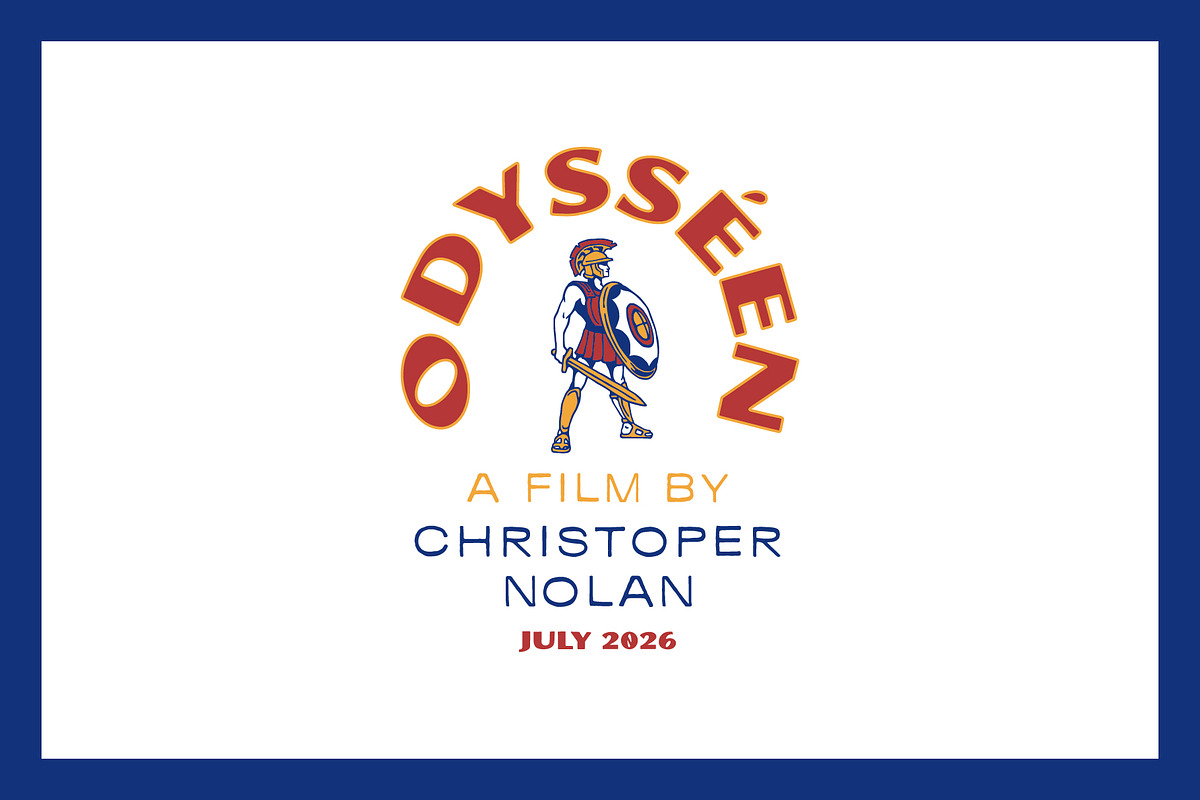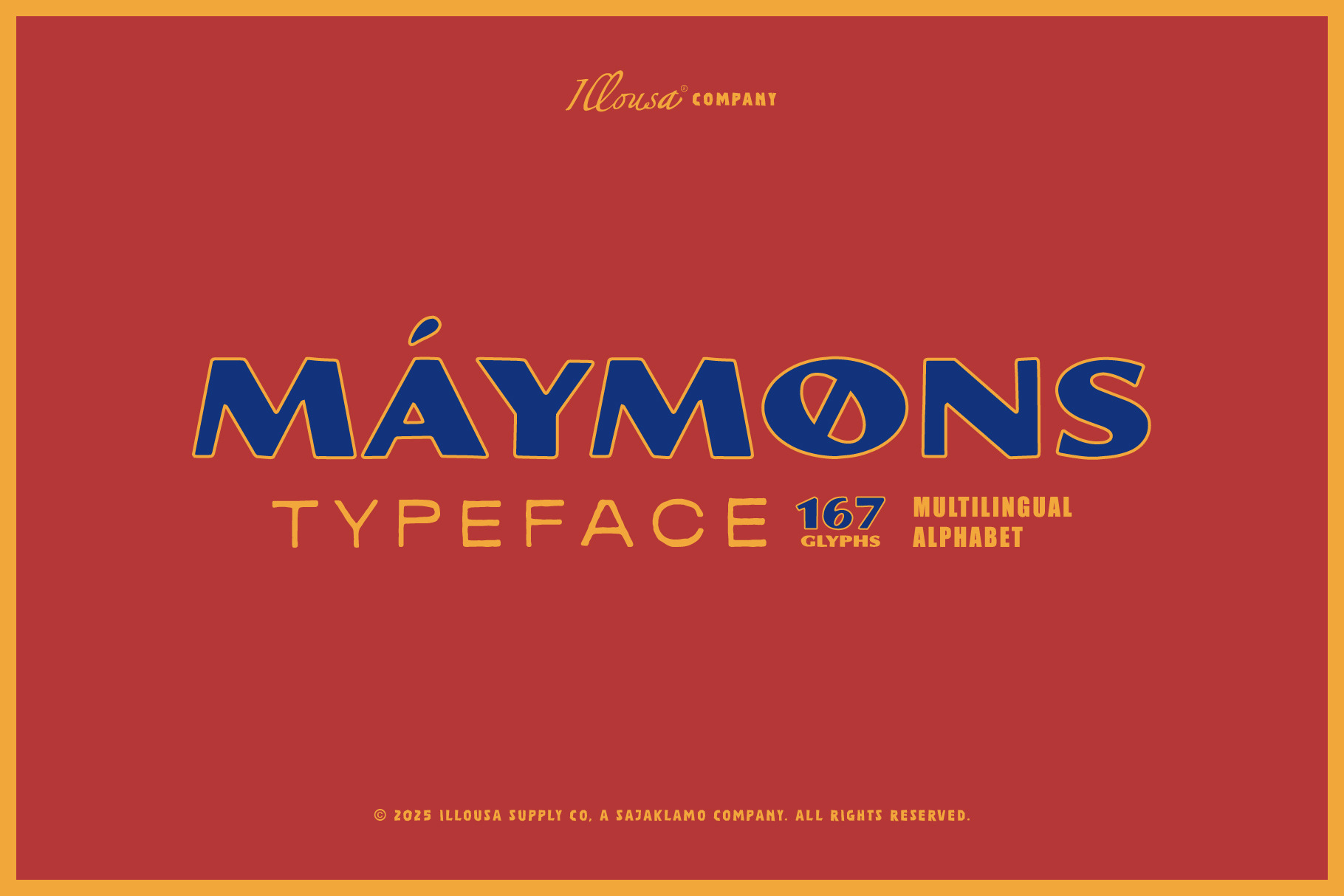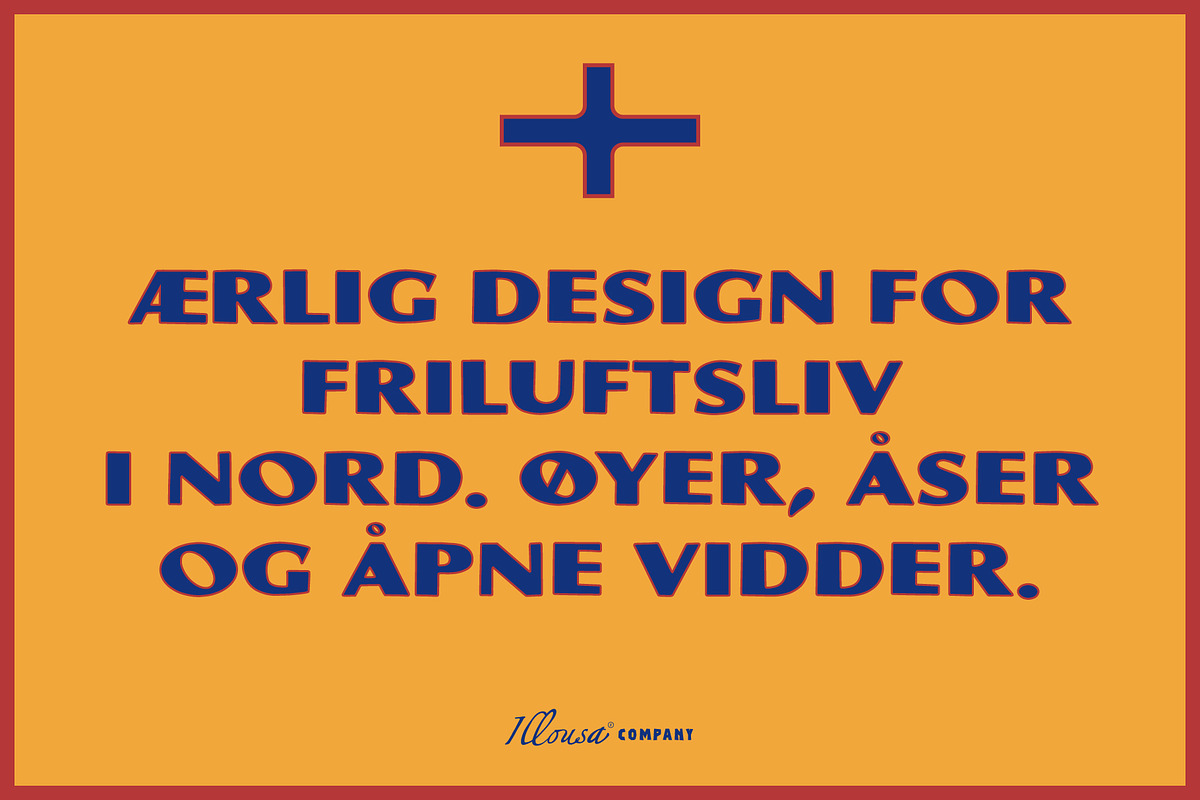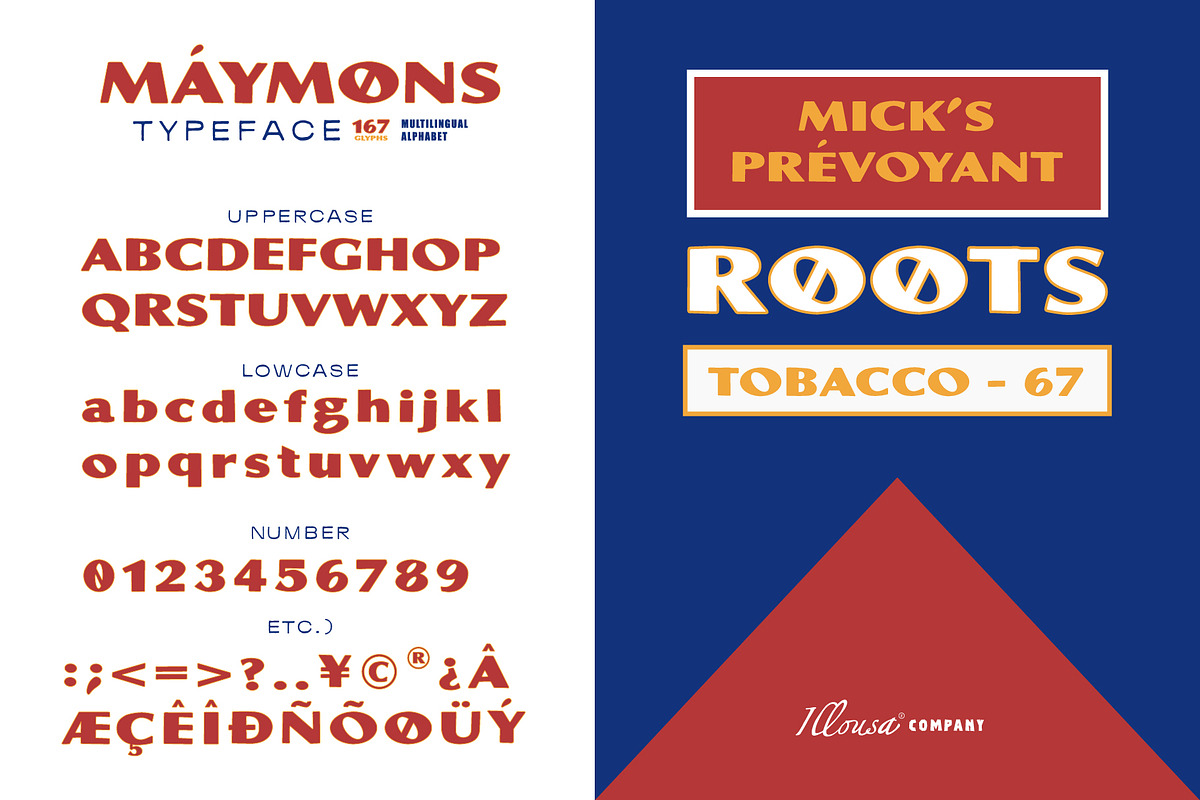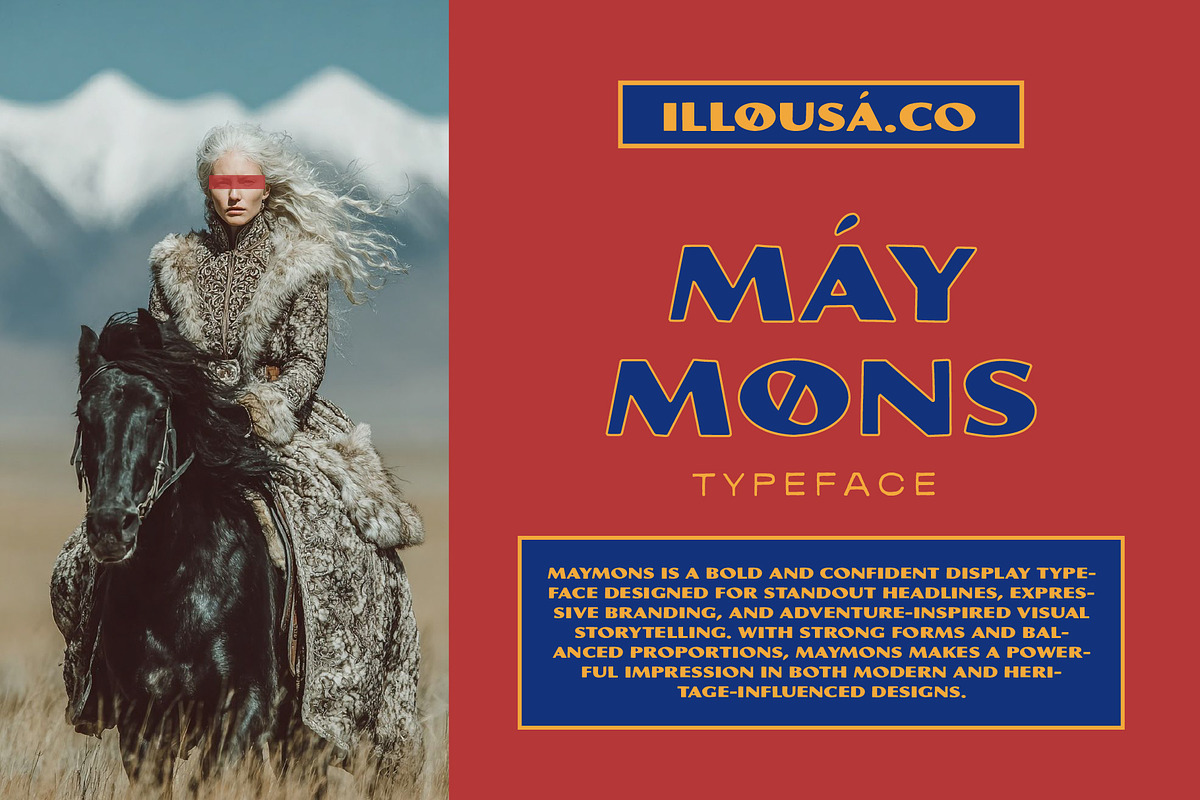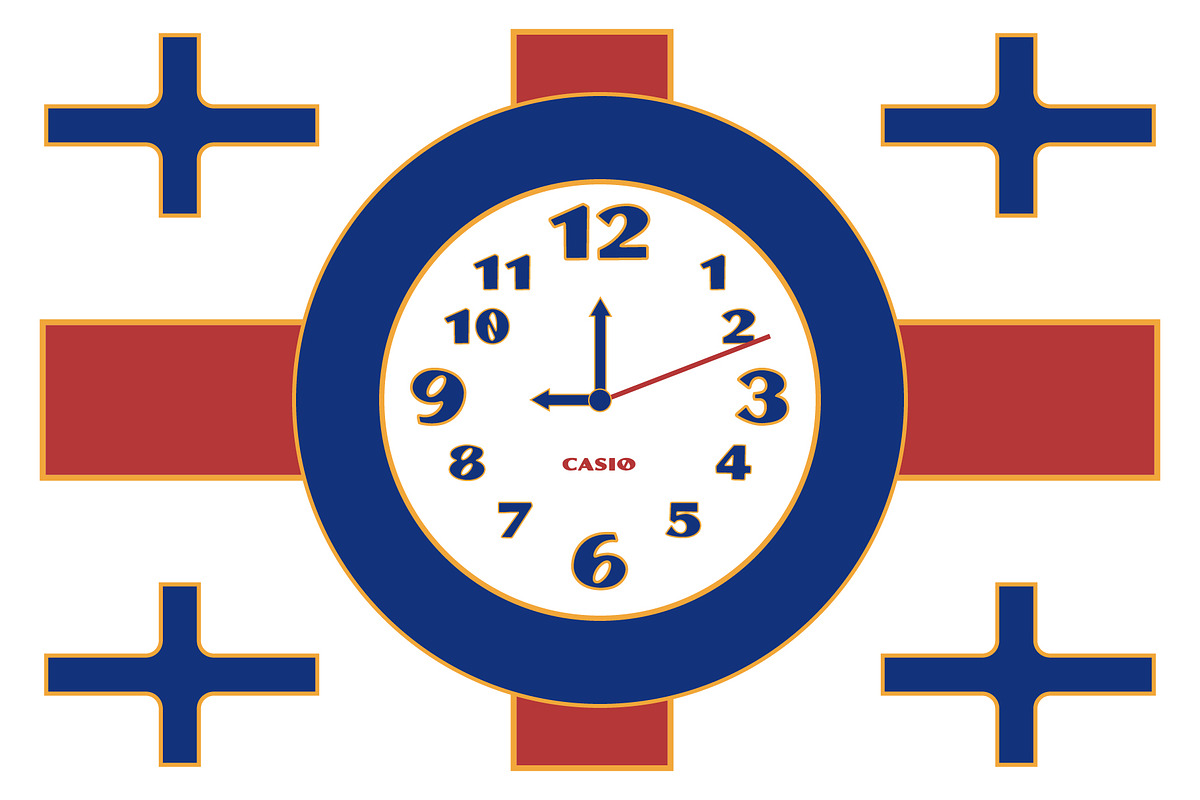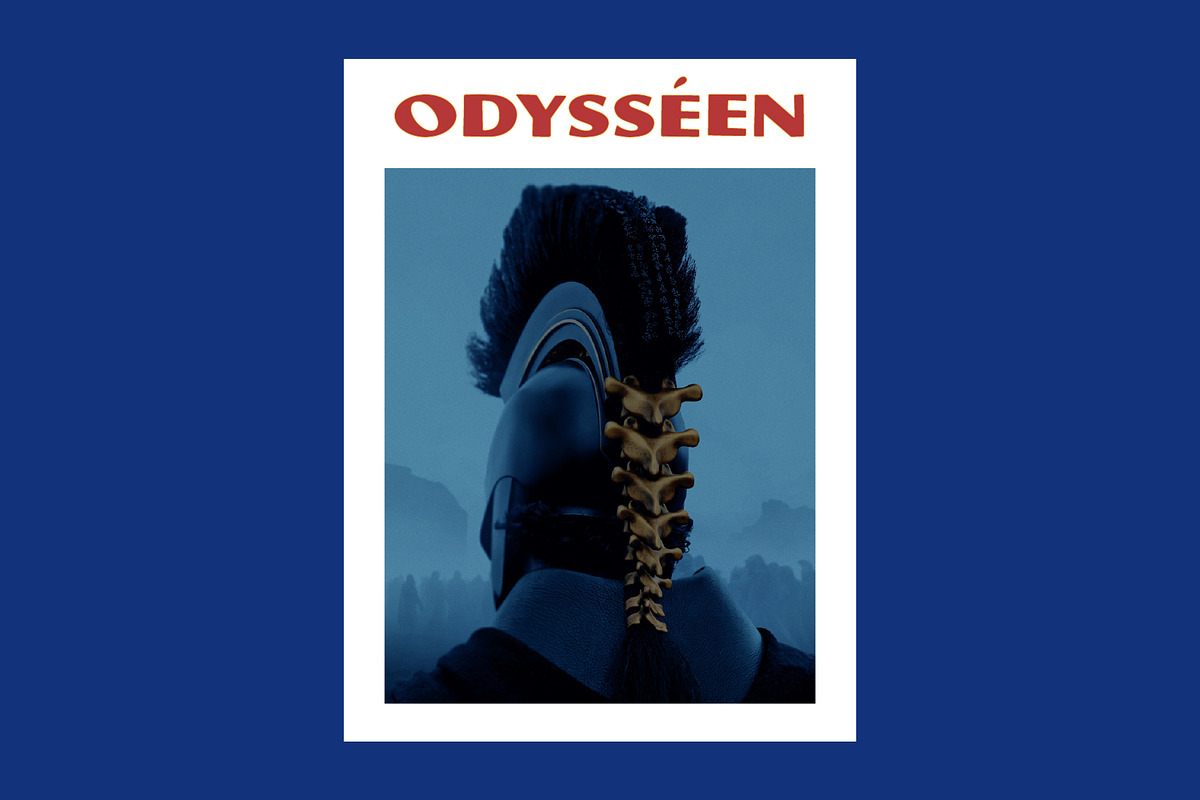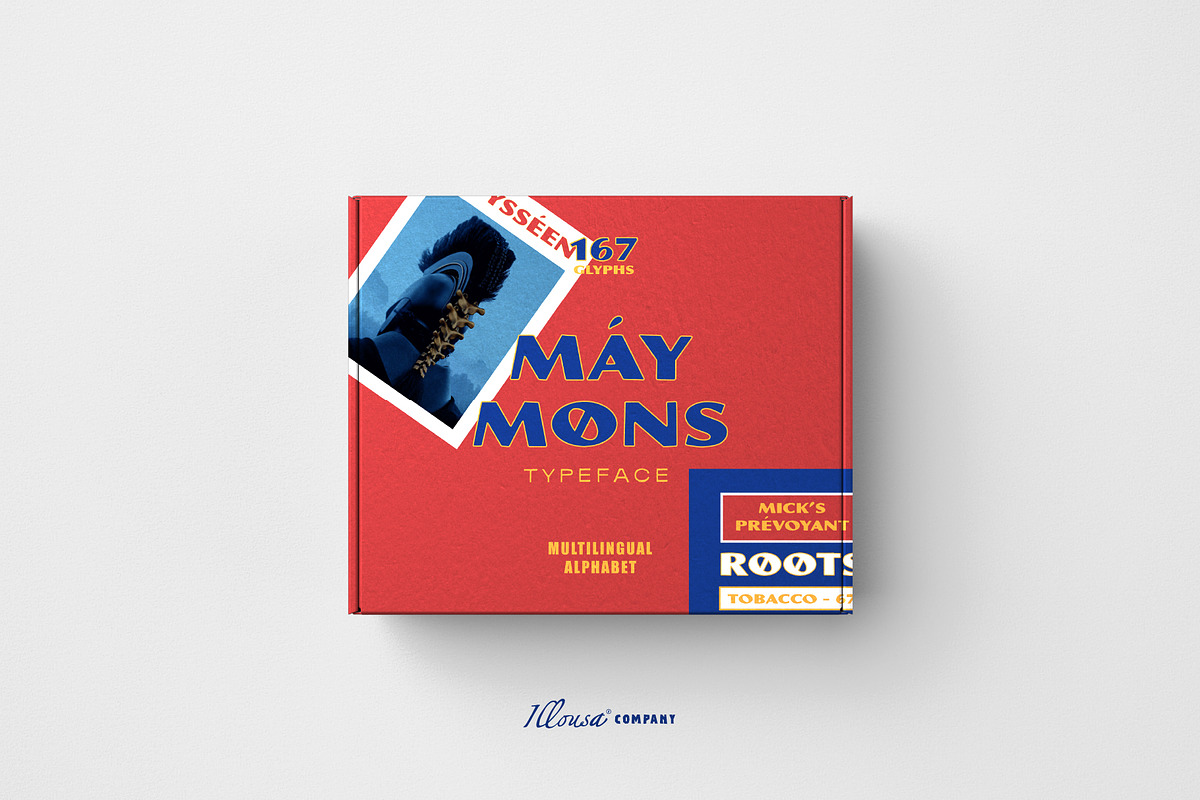
Maymons | Bold Sans Serif Font
Maymons is a bold and confident display typeface designed for standout headlines, expressive branding, and adventure-inspired visual storytelling. With strong forms and balanced proportions, Maymons makes a powerful impression in both modern and heritage-influenced designs.
Crafted to deliver clarity and impact, this typeface works beautifully across a wide range of creative projects. Its solid structure and clean geometry ensure excellent readability while maintaining a distinctive, character-driven look. Maymons is built for designers who want their work to feel strong, intentional, and visually memorable.
- Bold display sans serif style
- Strong, confident letterforms
- Clean and versatile design with heritage influence
- High readability for headlines and branding
- Numerals & punctuation
- Suitable for print and digital use
- Logos & brand identity
- Bold headlines & titles
- Posters, signage & packaging
- Apparel & merchandise
- Editorial layouts
- Websites & social media graphics
- Creative and professional design projects